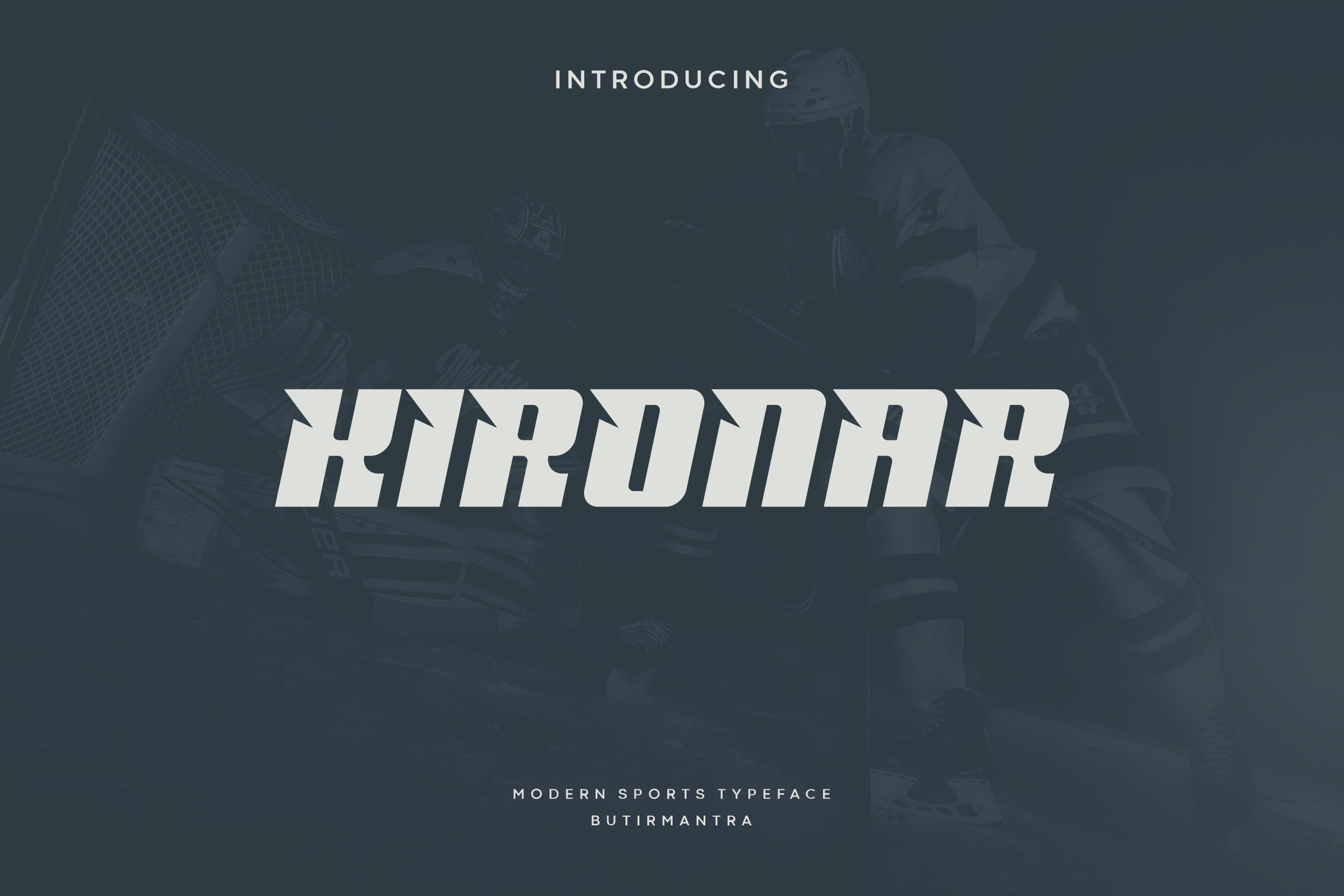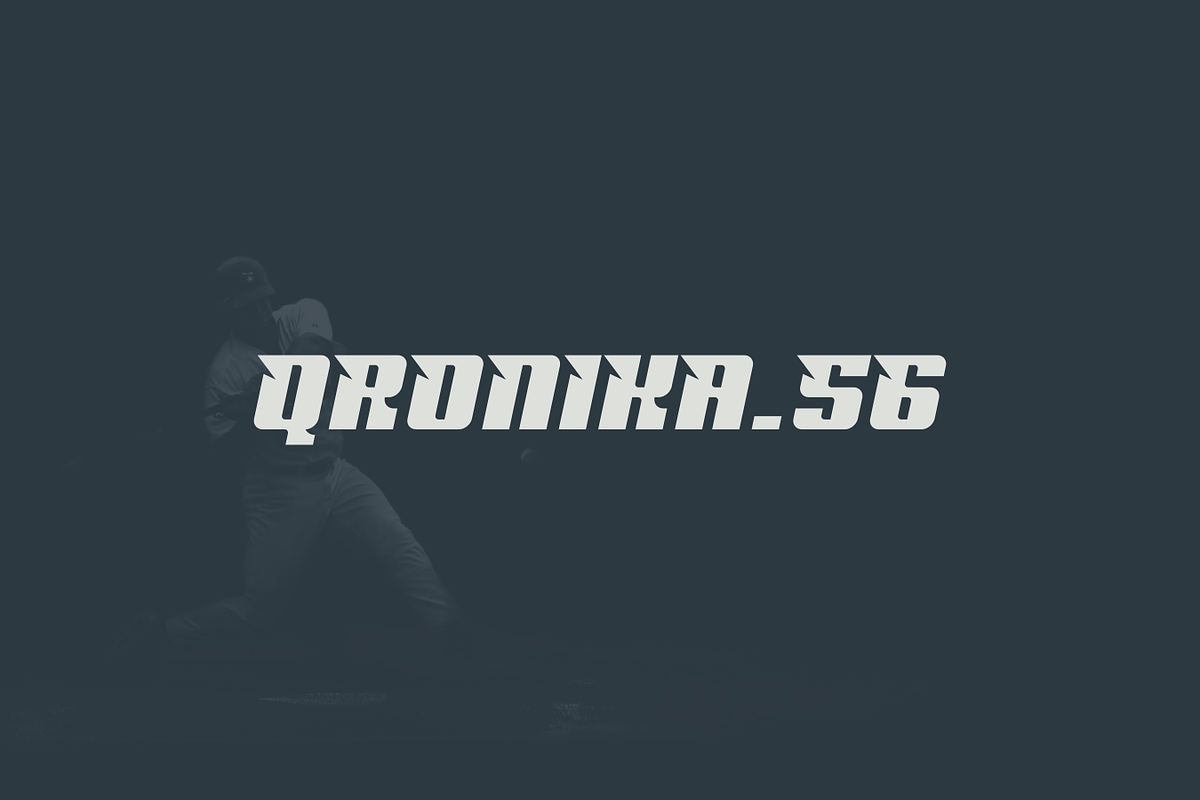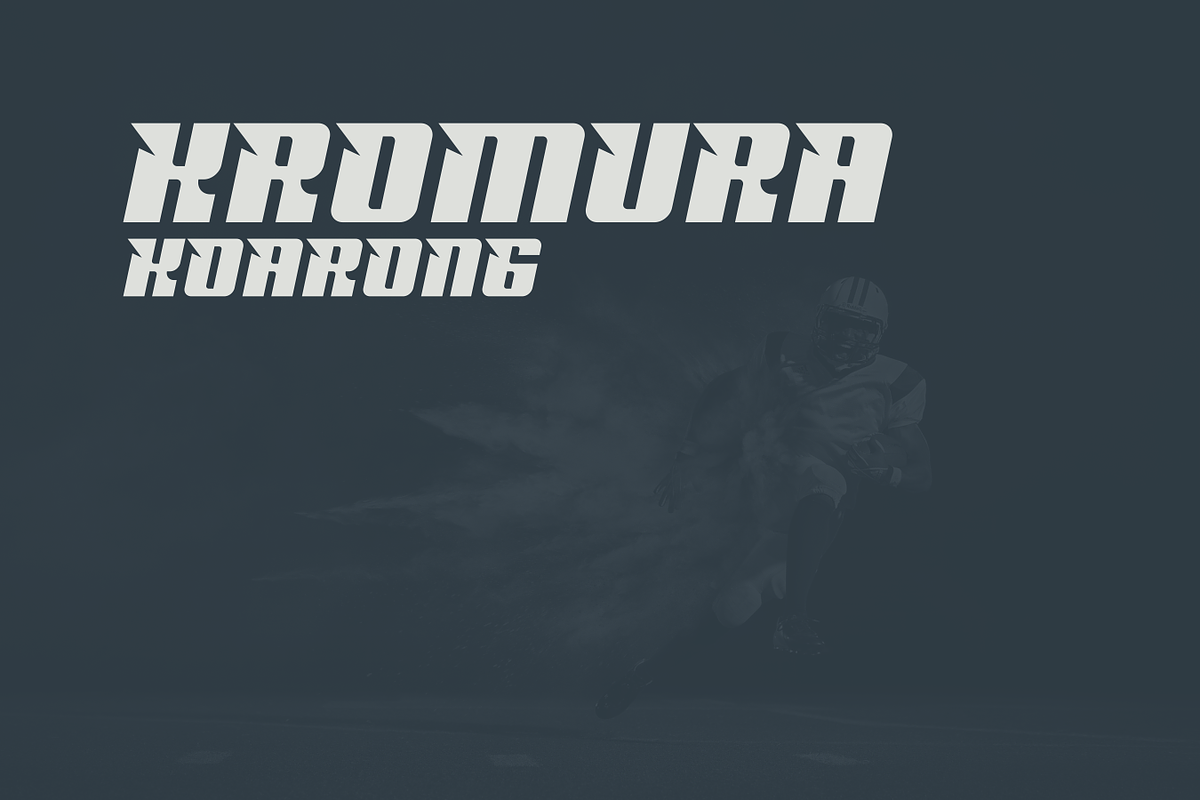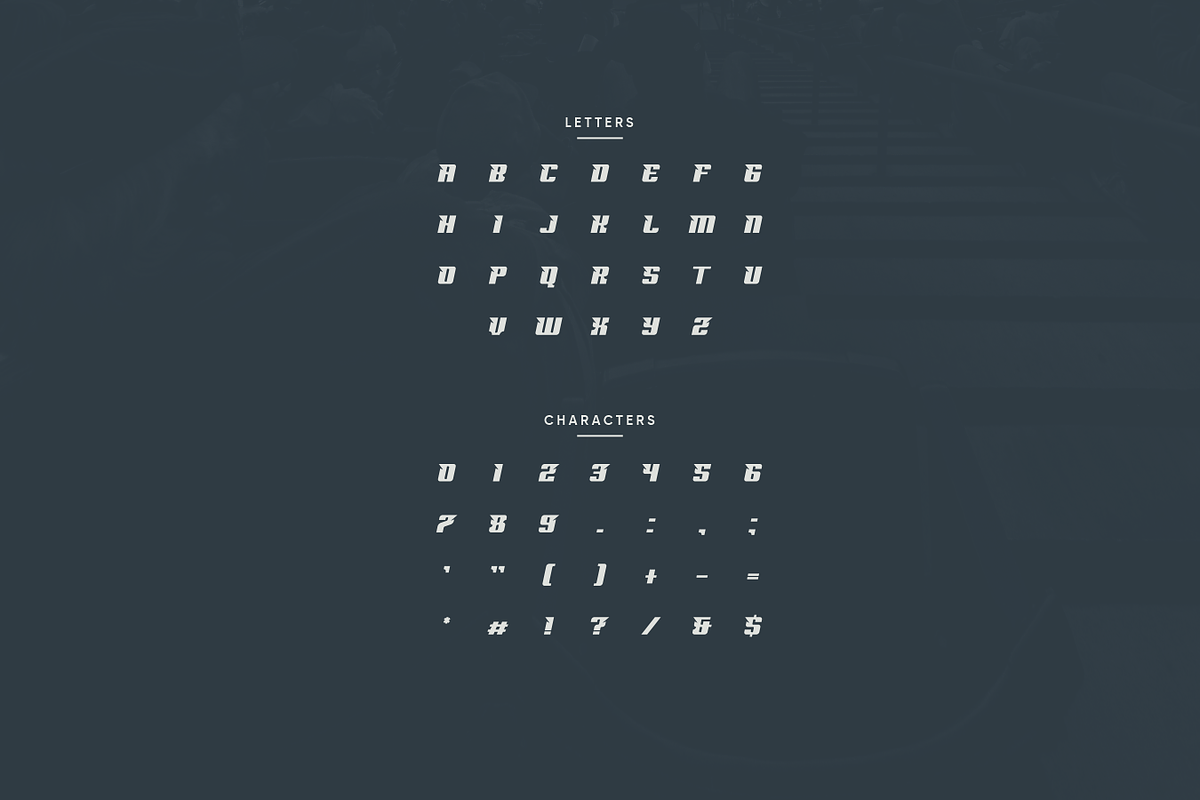
Kironar - Modern Sport Typeface
Kironar is a cool sports font with a fresh style, modern cutouts and dynamic tilt for a quick feel. Ideal for fast auto racing sports, titles, logo, poster, headline, magazine, automotive games, monograms or other modern dynamic designs. The Kironar have a unique at every angle, the cut creates an effect of strength and speed. Designed as a fast and dynamic font, but with a slightly different font design, check it out and get it soon for a design that stands out.
- Punctuation & Number